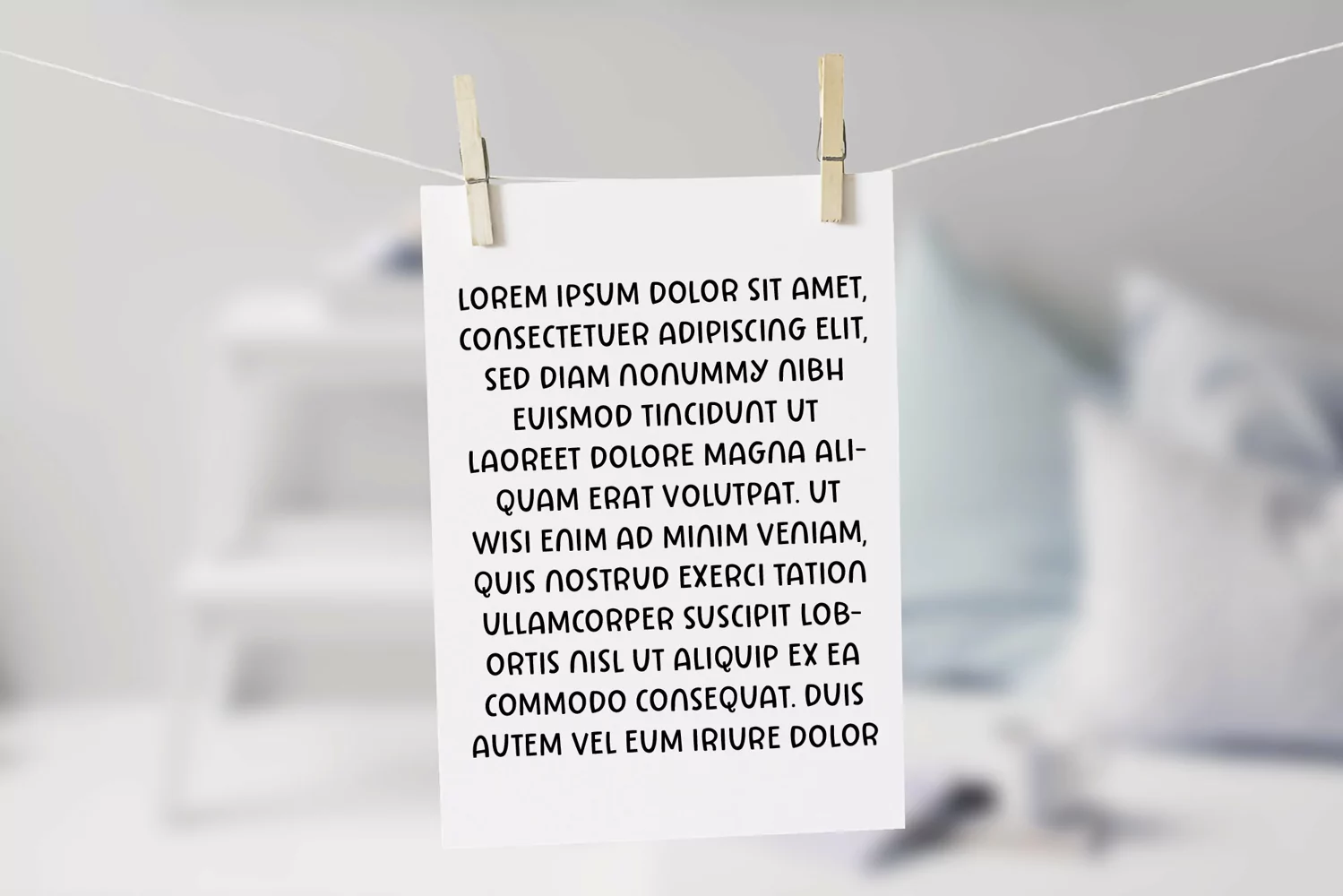
Primrose Gardens is a lovely, loopy all caps font with whimsical details. Mix and match upper and lowercase for a quirky vibe.
The loopy alternates were coded as uppercase characters. Hit shift on b, e, k, m, r, w, and y for a loopy alternate.
Includes characters for western European languages.